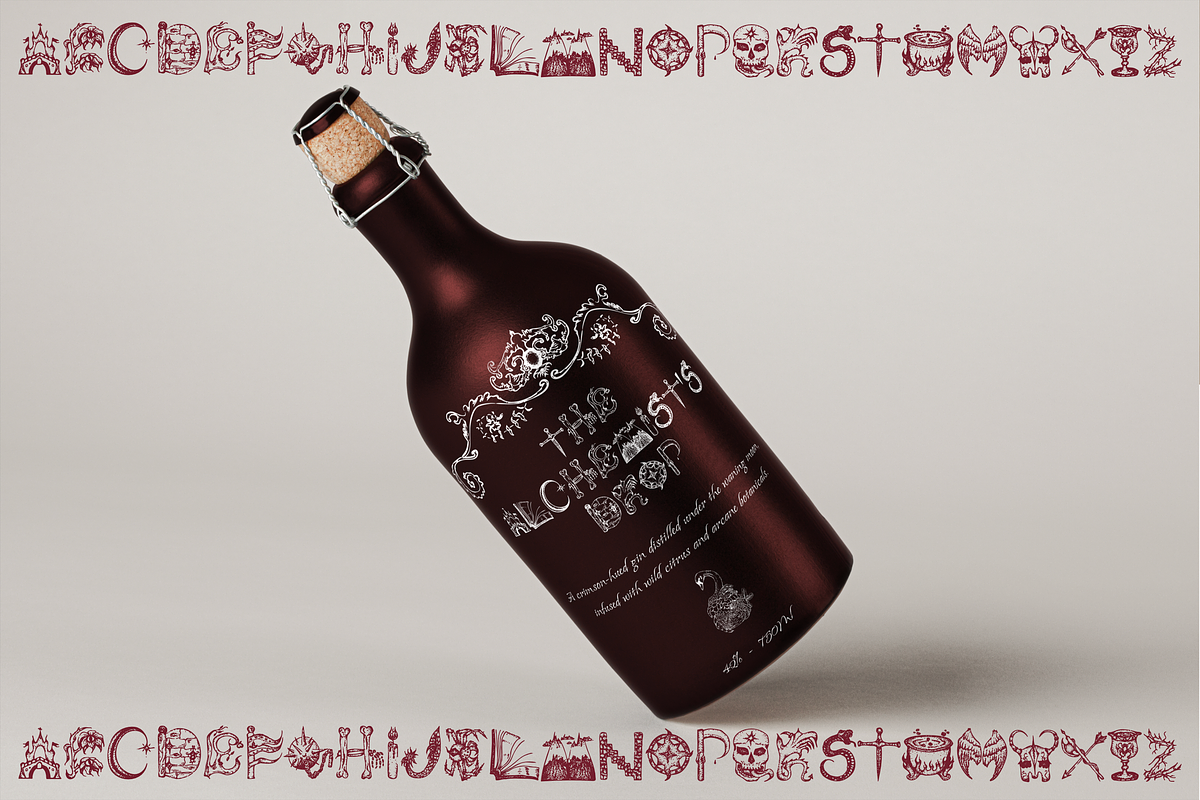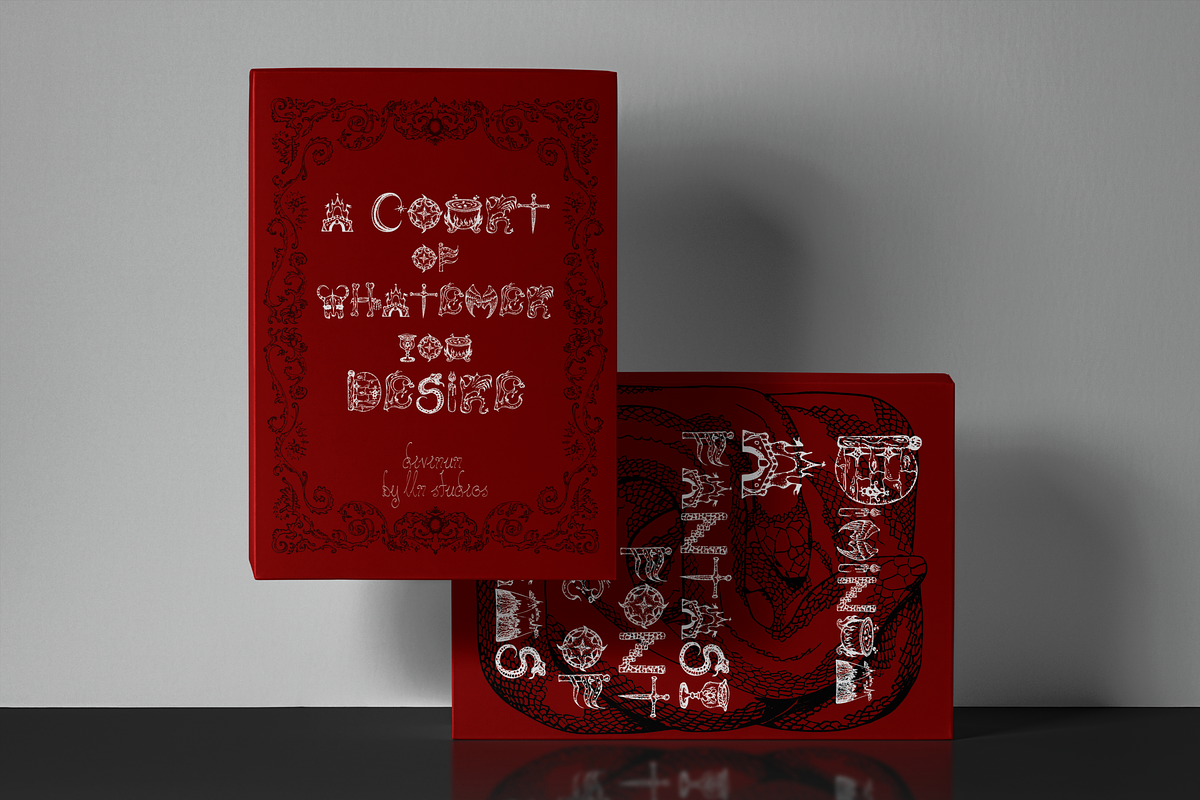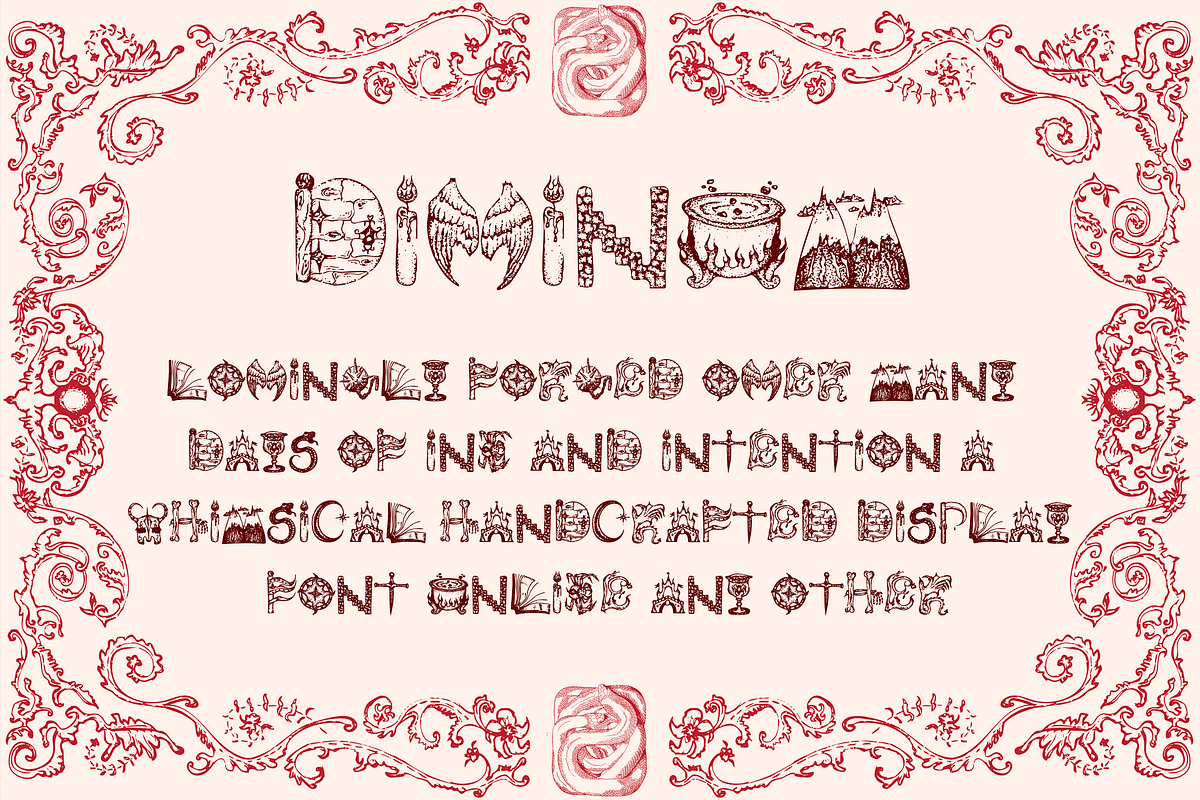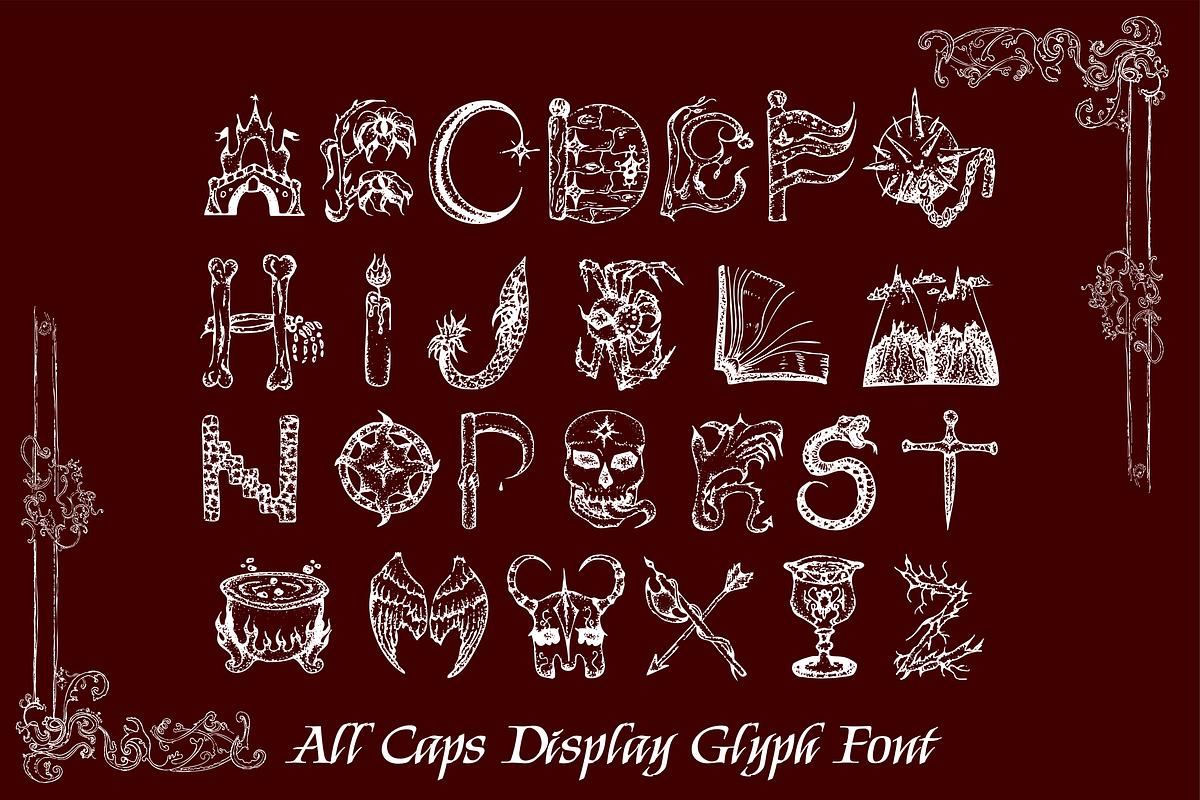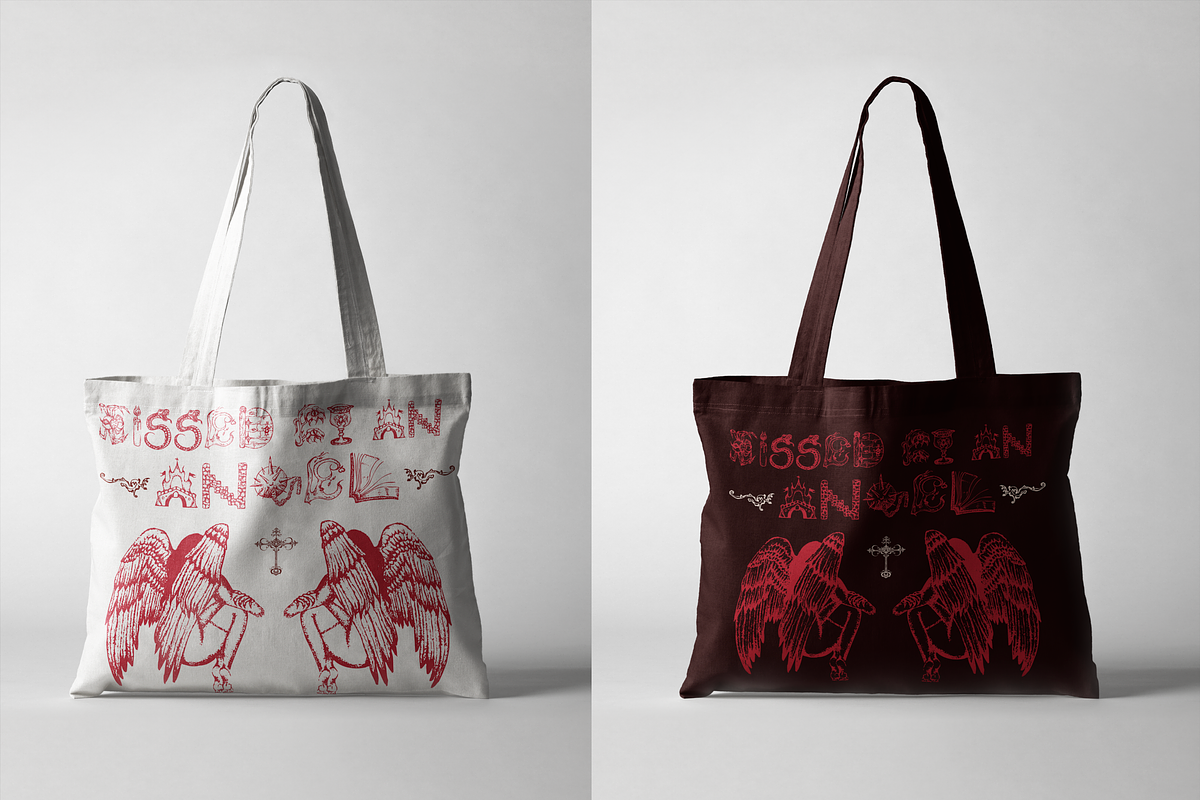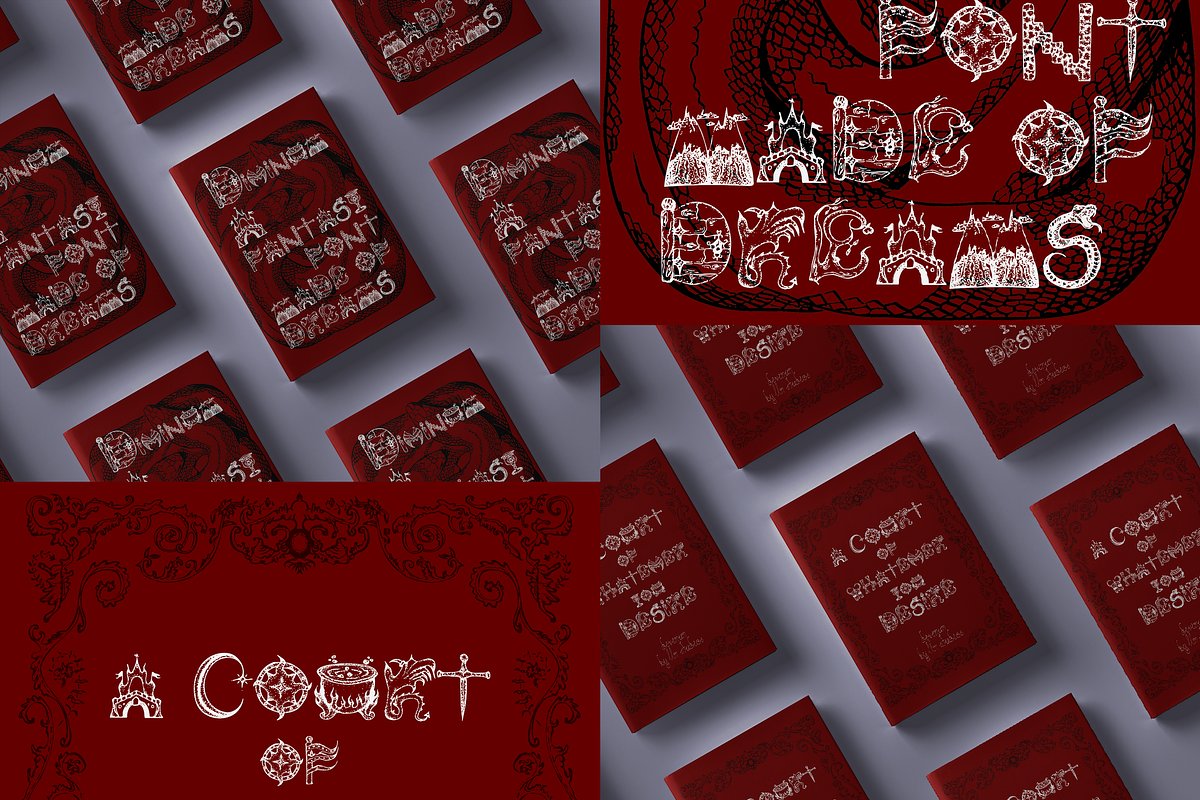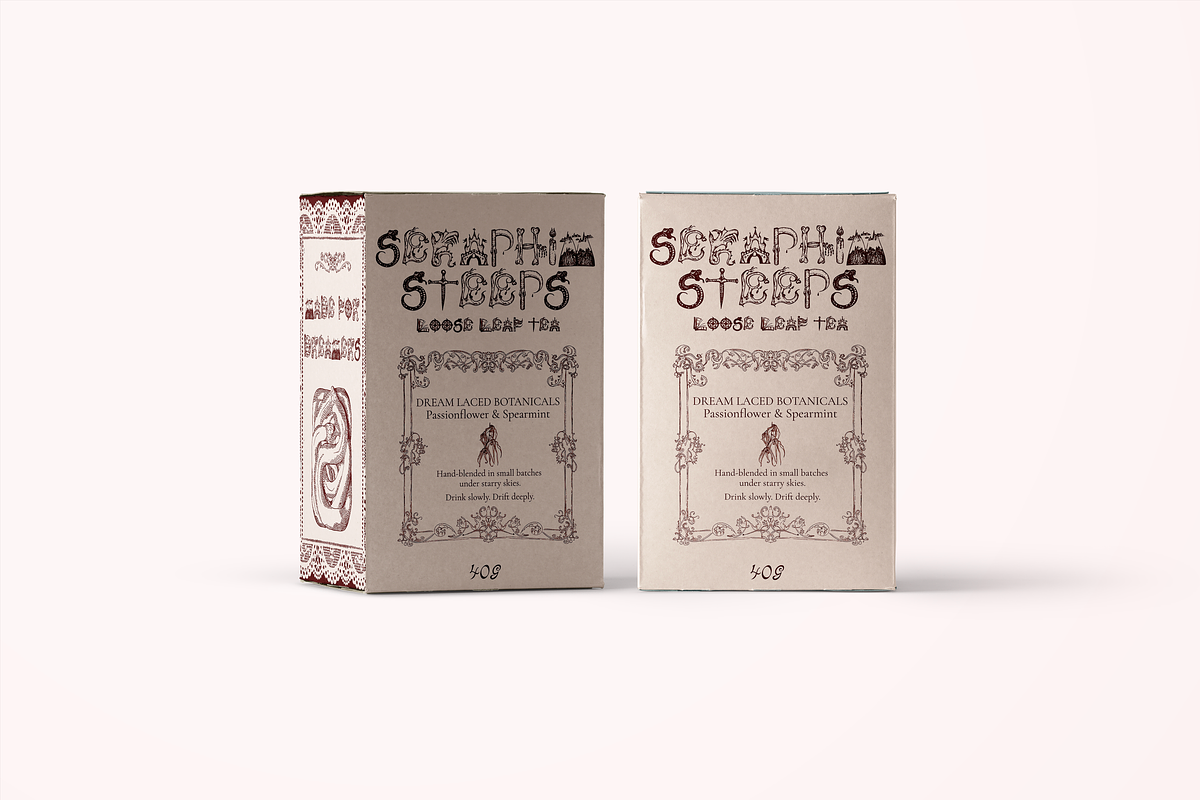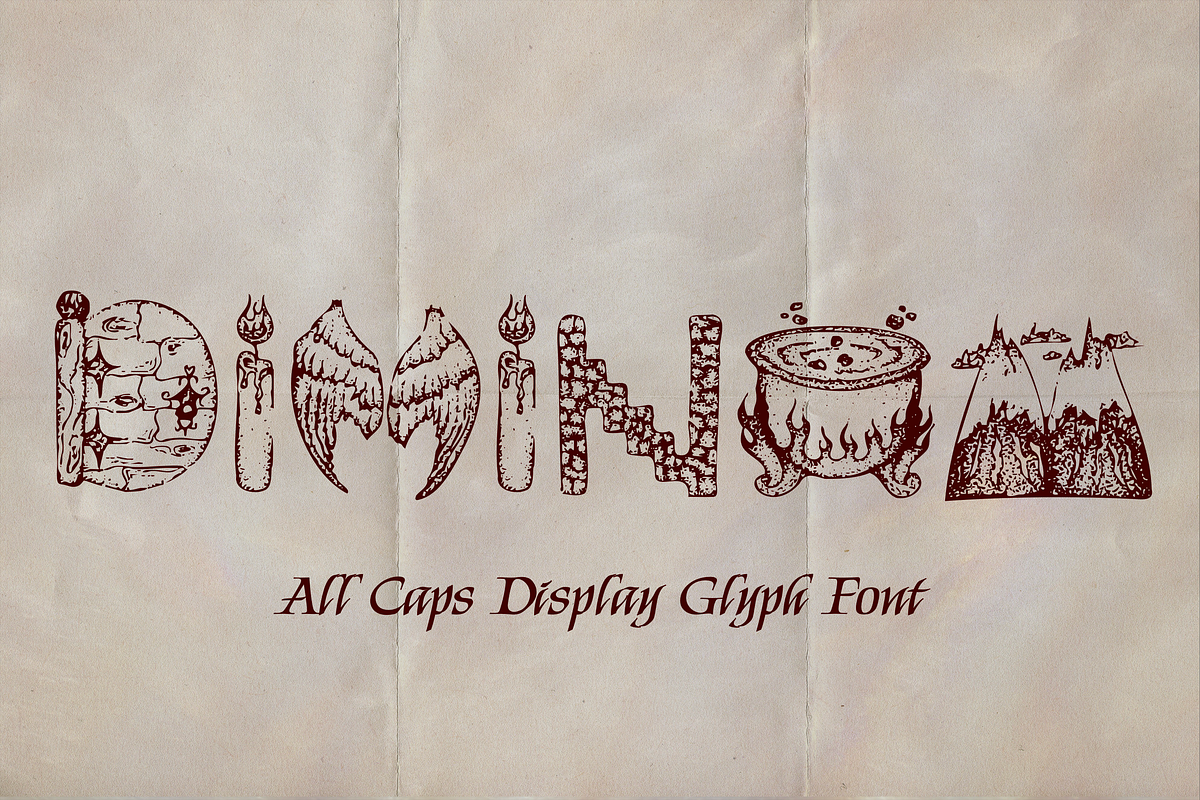
Divinum, A Fantasy Display Font
Introducing Divinum an enchanting hand-drawn display 'glyph styled' font crafted for fantasy lovers, bookish designers, and dreamers of distant realms.
Divinum was built over many a day starting with old fashioned paper and pen, handcrafted with hours and hours of stippling, and then brought into illustrator and perfected to form the clean glyph in front of you.
Perfect for posters, packaging, fantasy novels, zines and creatives who want something wild, weird, and wonderful!
Divinum was built with fantasy readers and creatives in mind, it’s the font I wish existed when I was designing tea labels, dust covers, and dark branding for elixirs and shadowy inns. I hope it inspires your worldbuilding.
- All uppercase letters (A–Z)
- Hand-drawn with irregular stipples & ornamental flair